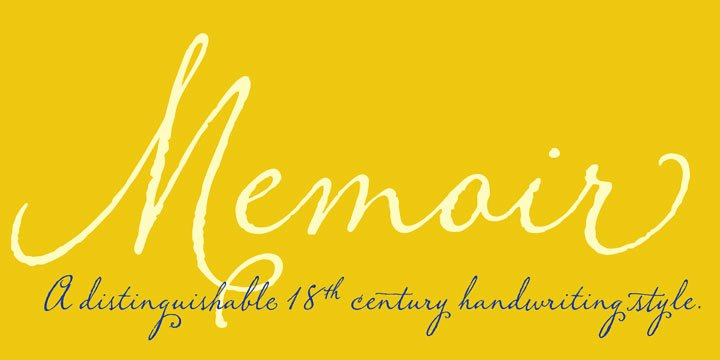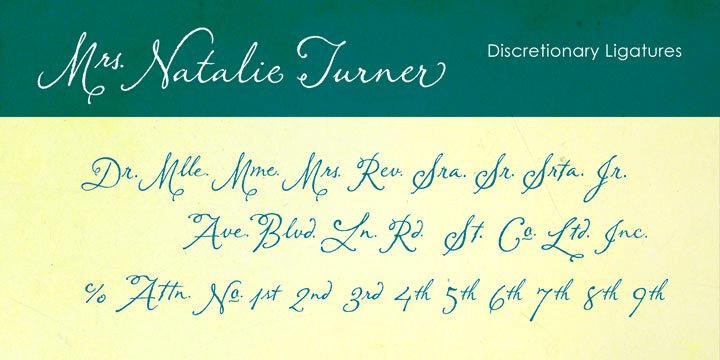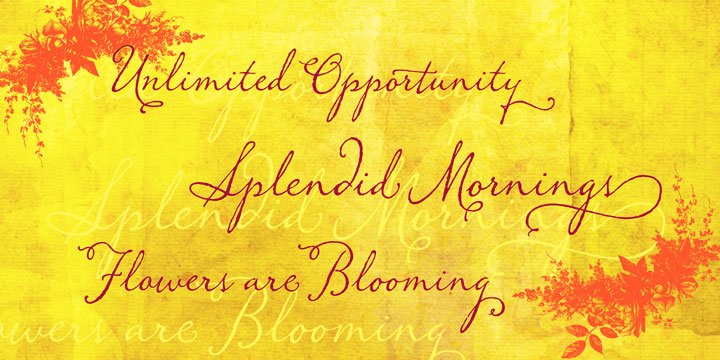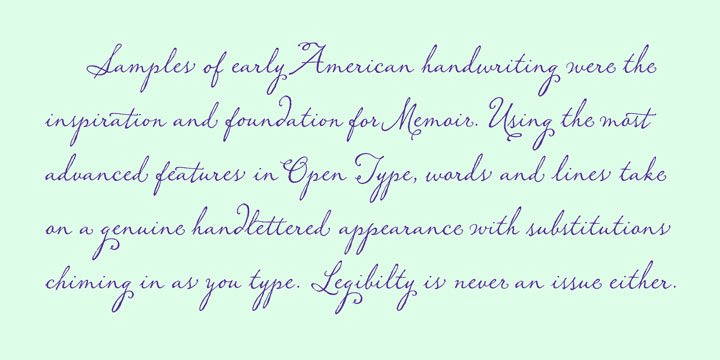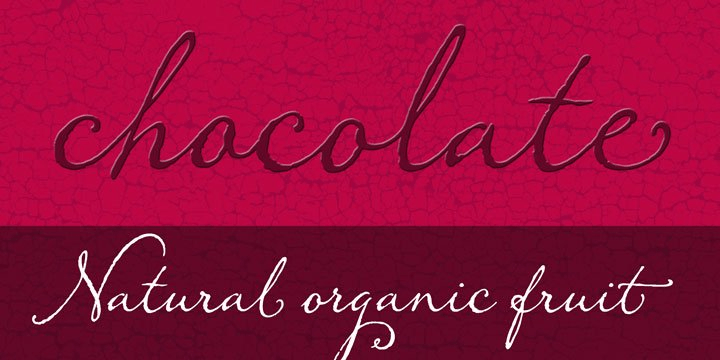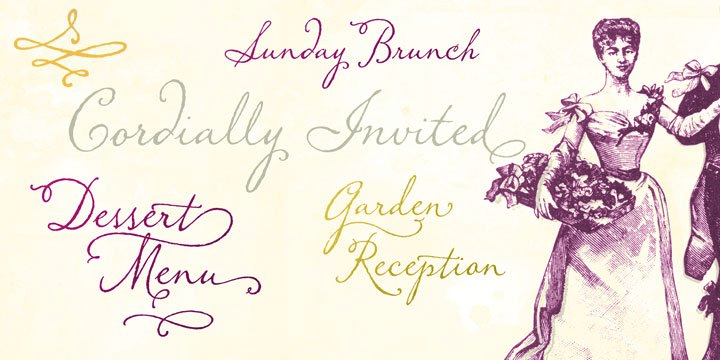
Memoir
Font Family by Stephen Rapp
Taking inspiration from 18th century handwritten letters, journals and documents, Memoir is a romantic yet robust design. Its textured profile speaks of surface and age, but this face will look very much at home in contemporary design. Useful for menus, cards, packaging, and logos, its versatility will prove its worth. Unlike signature fonts from that era, Memoir is designed to set in a manner that connects fluidly as if it were actually written.